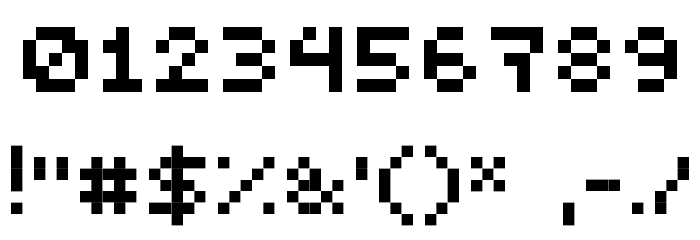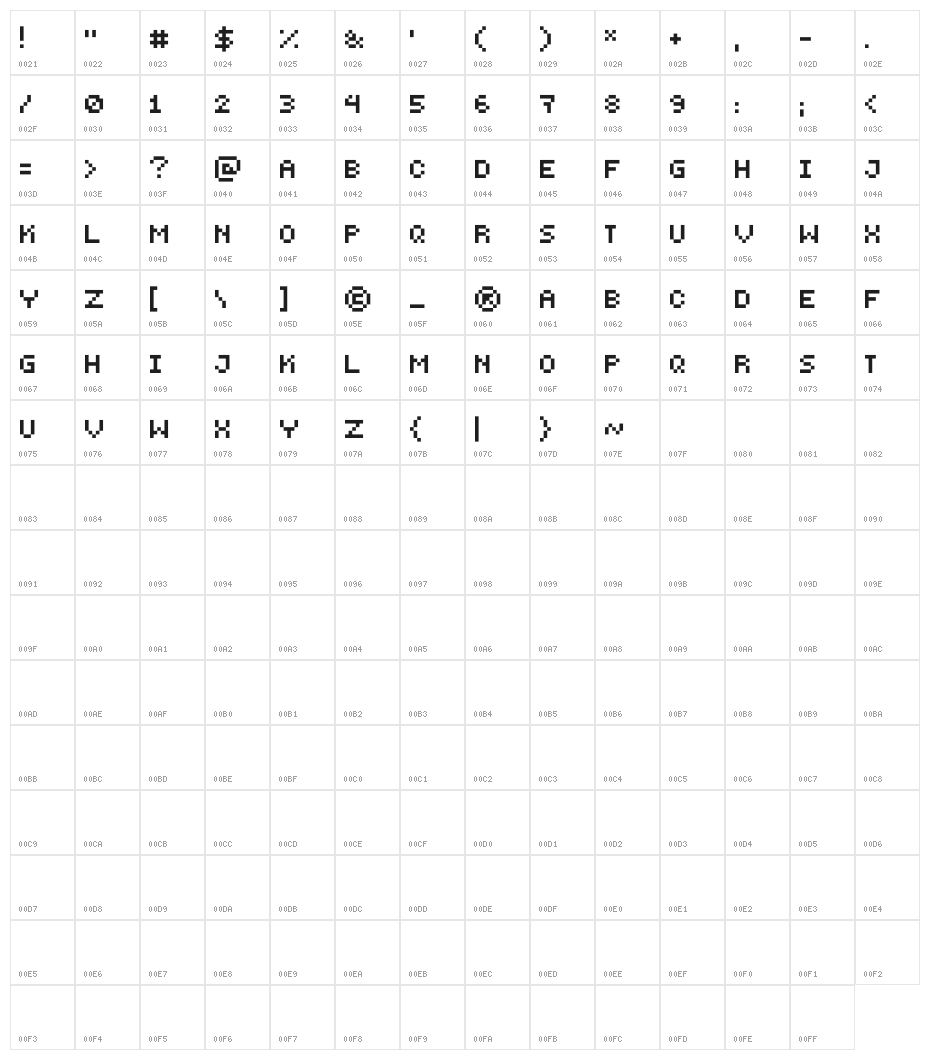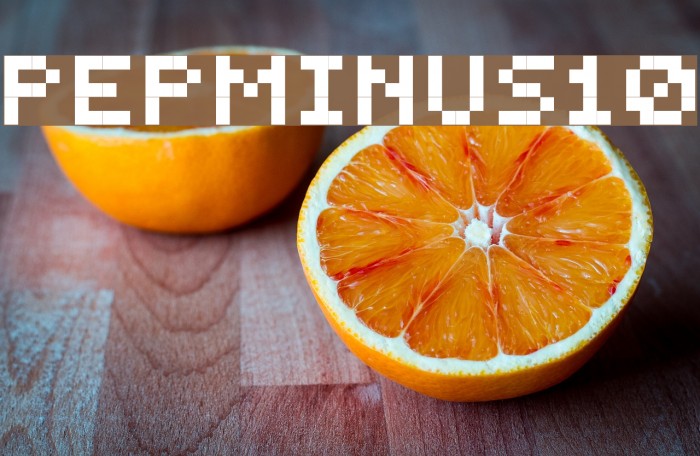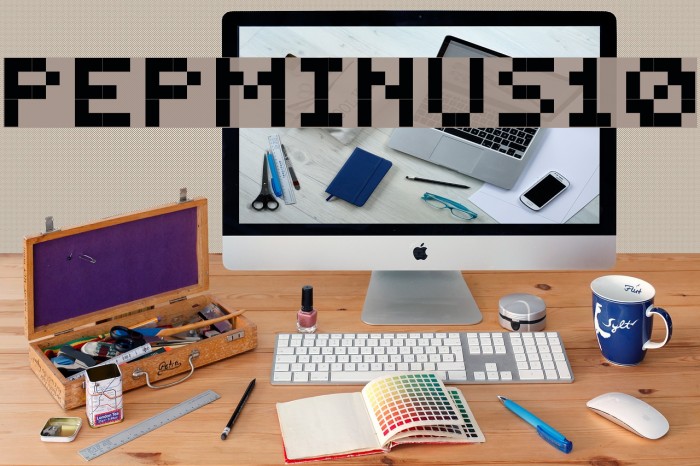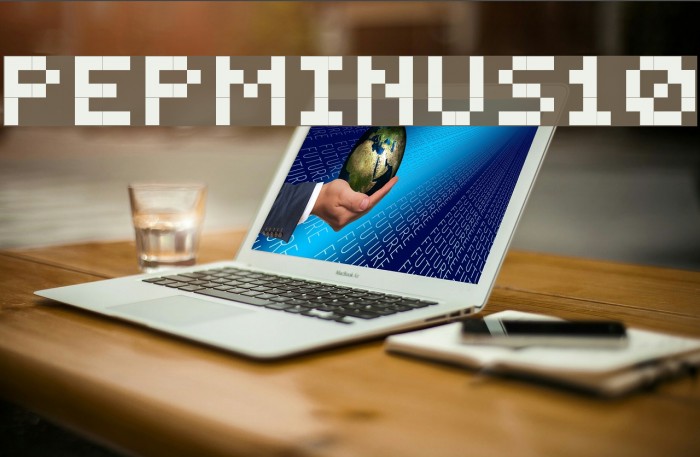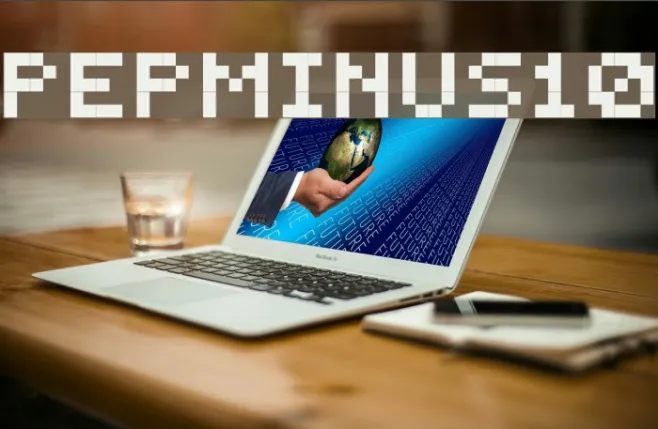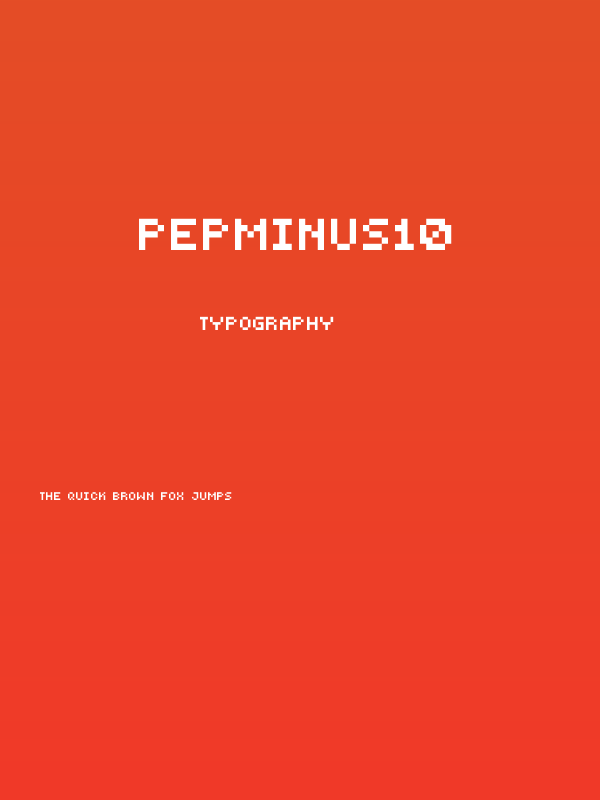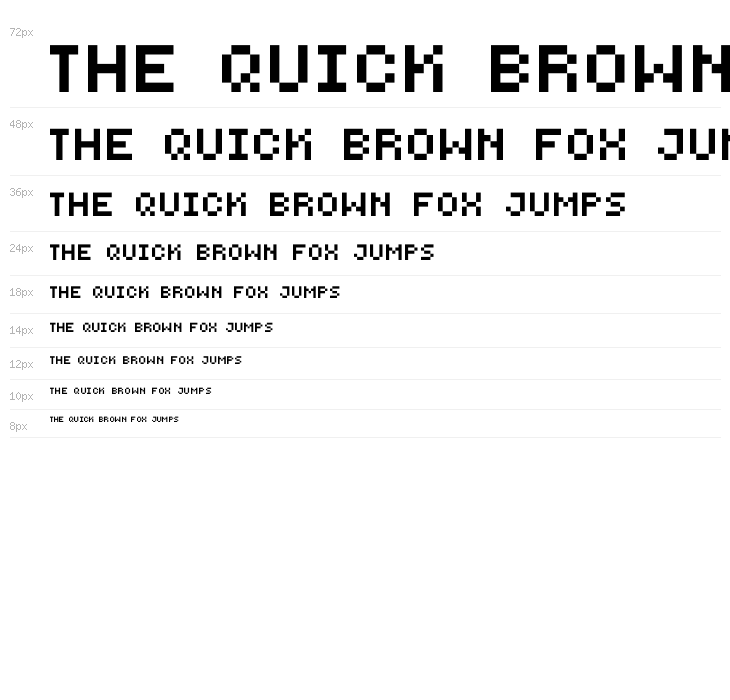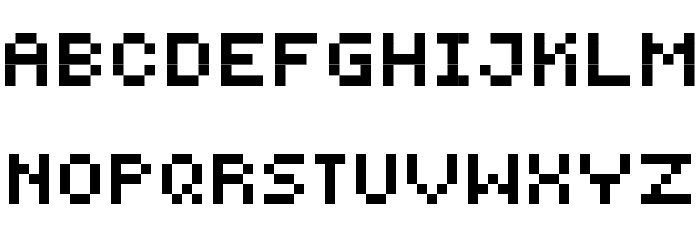
PEPminus10 Font
PEPminus10 Description
This font features a pixelated, blocky design reminiscent of early digital displays and retro video games. Each character is constructed with a grid-like precision, giving it a distinctly digital and geometric appearance. The uniformity in height and width across all characters provides a cohesive and structured look. The font is highly legible at smaller sizes due to its bold and clear lines, making it ideal for digital interfaces. Its nostalgic style evokes a sense of classic arcade games, making it perfect for projects that aim to capture a retro or tech-inspired aesthetic.
| Proposed Projects | Ideal for retro video game designs, digital interfaces, tech-themed posters, and nostalgic branding projects. |